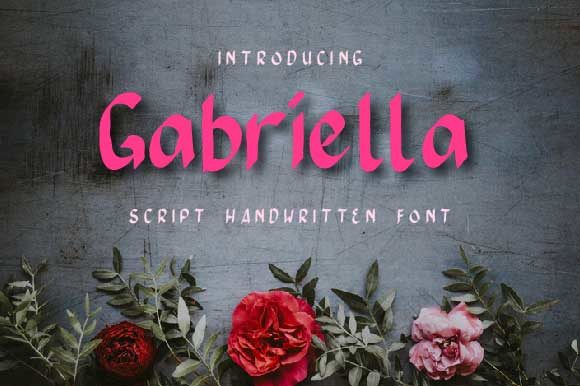
Gabriella Font
About Gabriella Font
Gabriella is a casual handwritten font. Its natural and unique style makes it incredibly fitting to a large pool of designs. The only limit is your imagination!